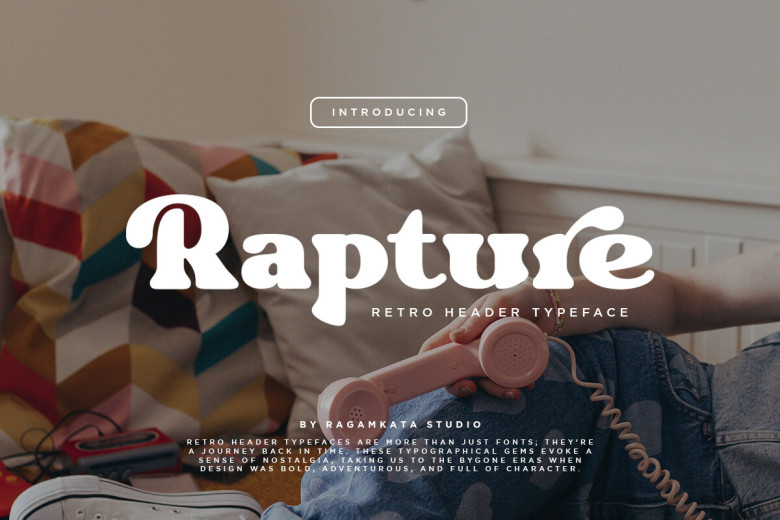
Rapture Font
Rapture is a retro serif font that has a vintage feel and look to it in addition to having some zest. Styling its design on retro models, this font gives an elegant look and creates a feeling of nostalgia. Every single letter is designed with a great deal of precision and in proportions that give the letters their distinctive look.
Rapture Retro Font